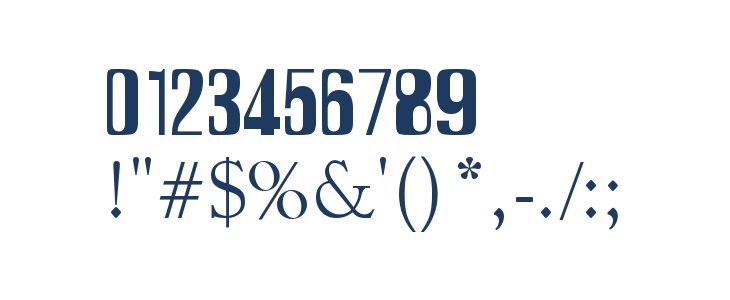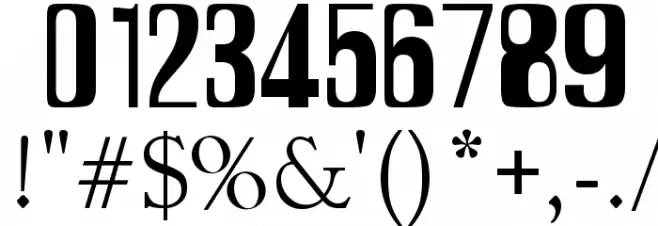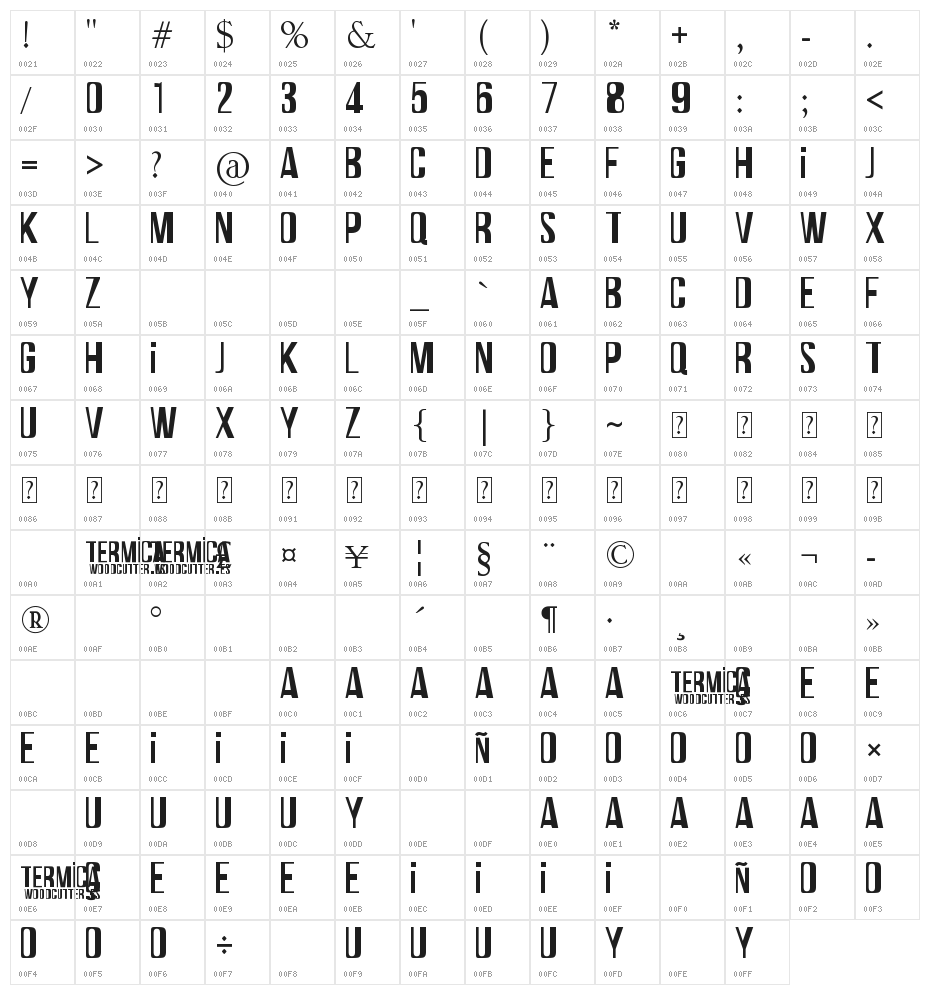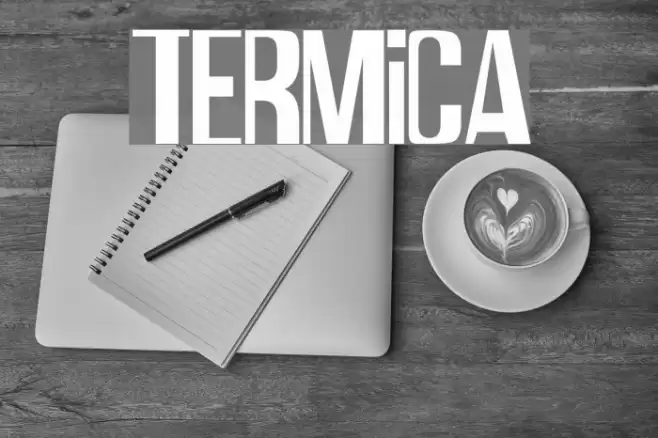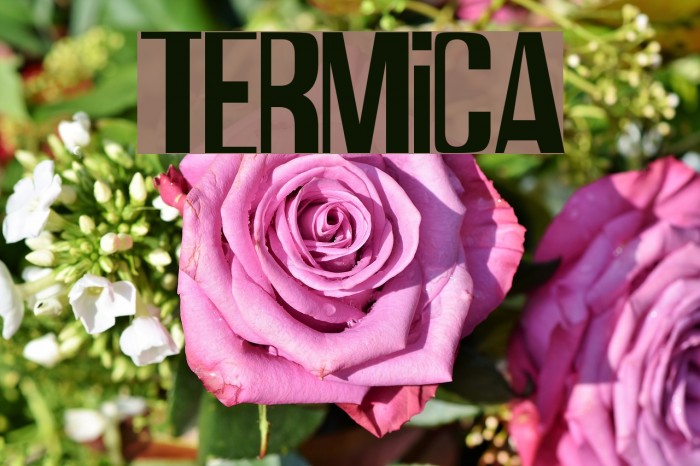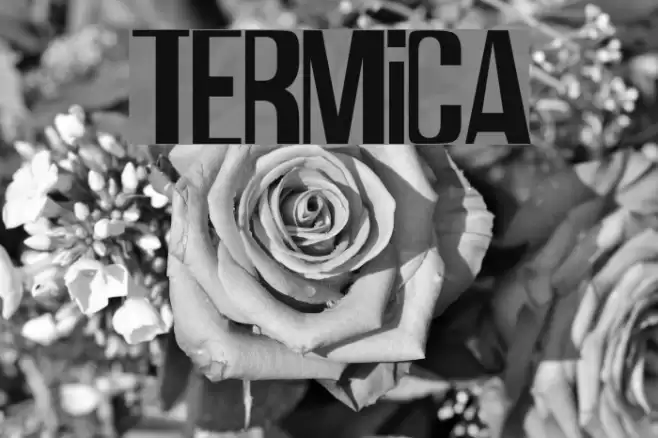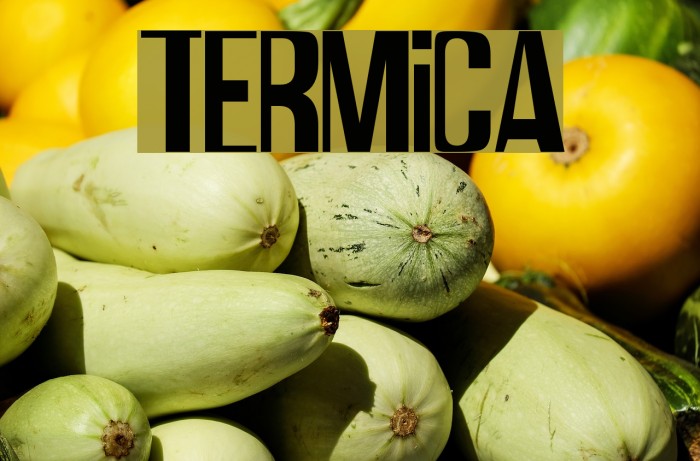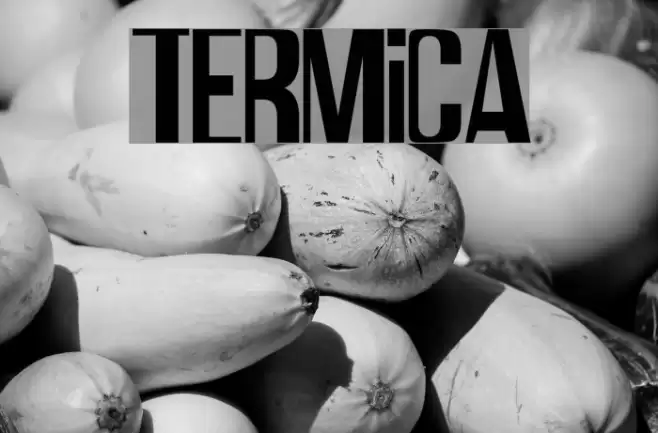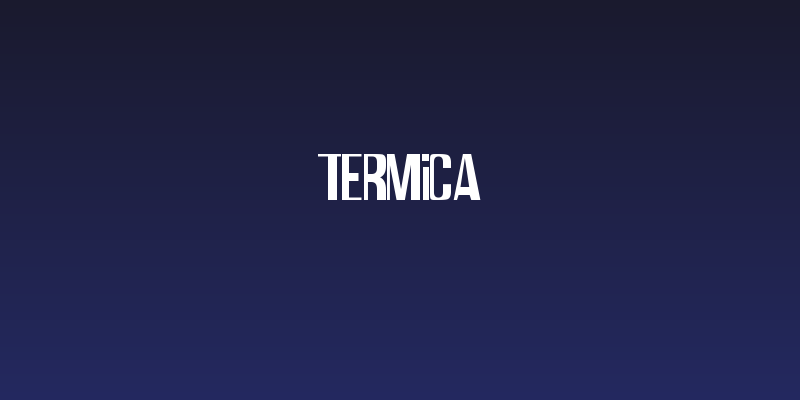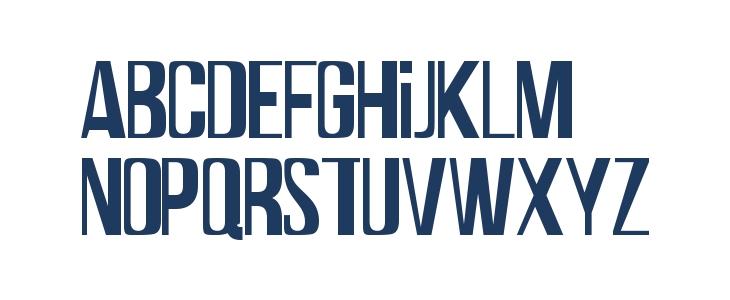
Termica Font
Termica Description
This font features a bold and striking design with a strong presence. The uppercase letters are tall and commanding, with a geometric influence that gives them a modern edge. The lowercase letters maintain a consistent style, complementing the uppercase with their own boldness. Numbers are equally robust, ensuring they stand out in any context. Special characters are designed with the same attention to detail, making them a perfect fit for a variety of uses. The overall look is both contemporary and versatile, suitable for making a statement in any design project.
| Proposed Projects | Ideal for headlines, posters, branding, and any project requiring a bold statement. |